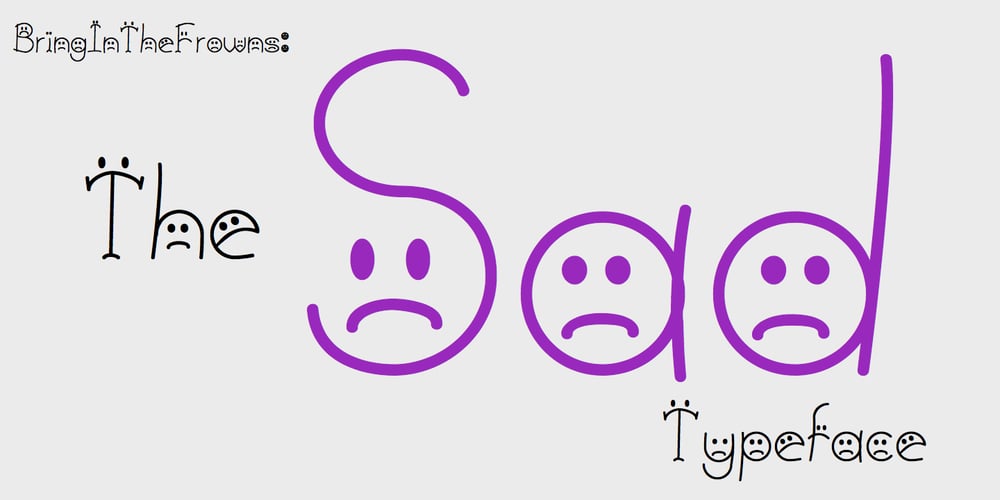
BringInTheFrowns Font Family was designed by Robert Schenk and published by Ingrimayne Type. BringInTheFrowns contains 1 styles and family package options. Why use a simple emoticon to express unhappiness or sadness when you can have an entire font proclaiming your feelings? This is a font that may work for notes of sympathy, whether real or in jest.For the smiley version, see AllSmiles, and if you only want to proclaim a only a little sadness, you can temper the feelings with a plain version of the typeface, FebDrei. In the update of 2011, emoticons were added in the appropriate unicode slots (unicode 1F601 to 1F640 slots)